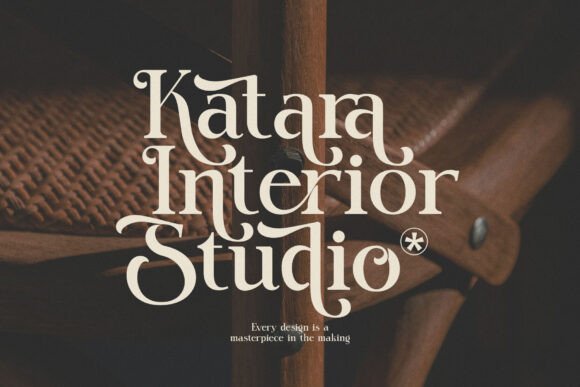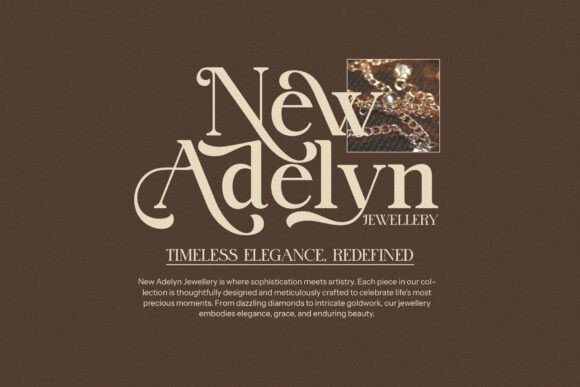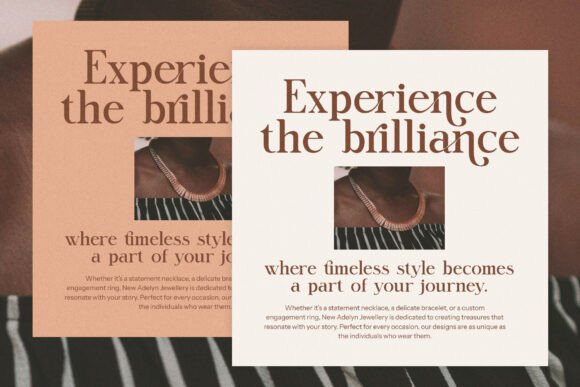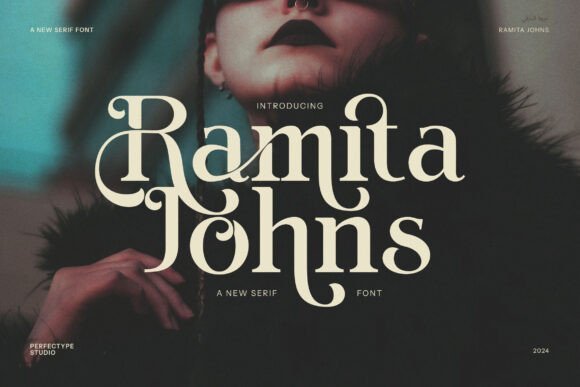
Introduction to Ramita Johns Font
Ramita Johns Stylish Serif Font is a contemporary and elegant serif typeface that seamlessly blends modern design sensibilities with timeless sophistication.
With its beautifully crafted letterforms and distinctive serifs, this font adds a touch of class and personality to any project Ramita Johns is designed to be both stylish and versatile, making it the perfect choice for projects that require a sophisticated, yet approachable aesthetic.
Key Features of Ramita Johns Font
Why Choose Ramita Johns Font?
Ramita Johns Font offers exceptional quality and versatility, making it a valuable addition to your design toolkit. Whether you’re creating for personal projects or commercial use, Ramita Johns Font delivers professional results.